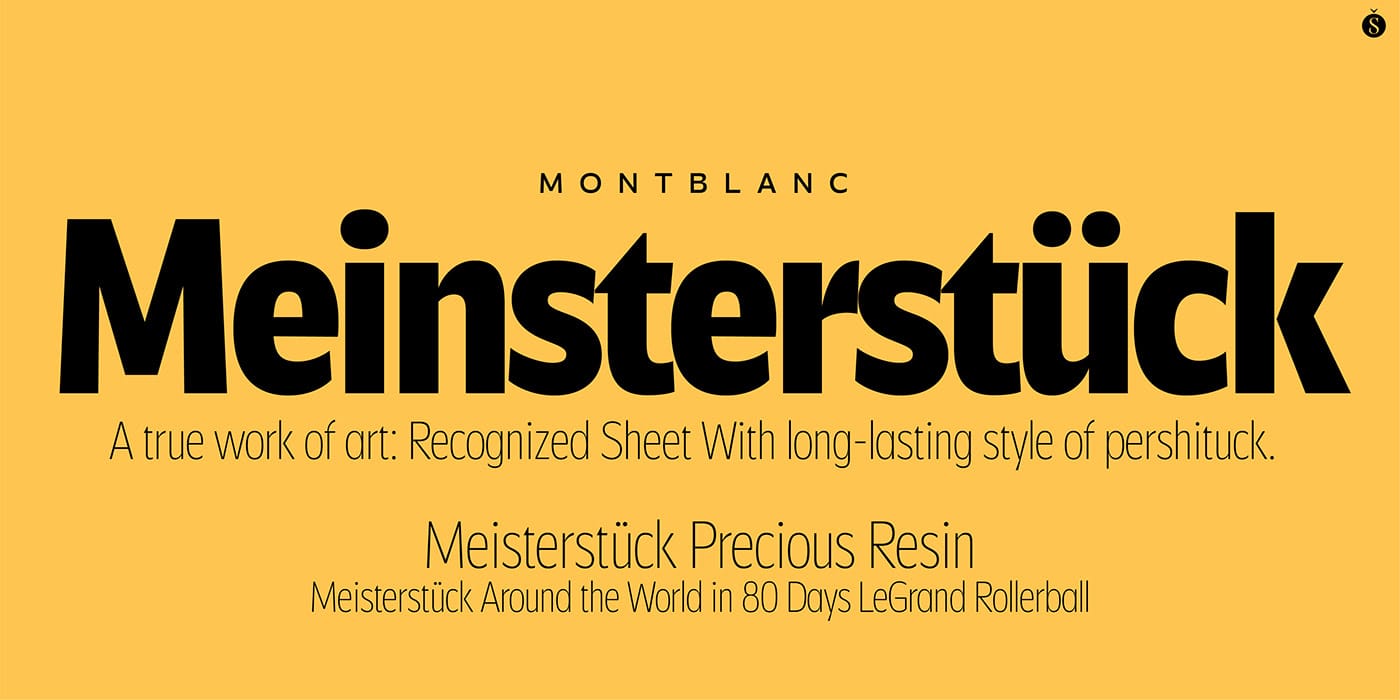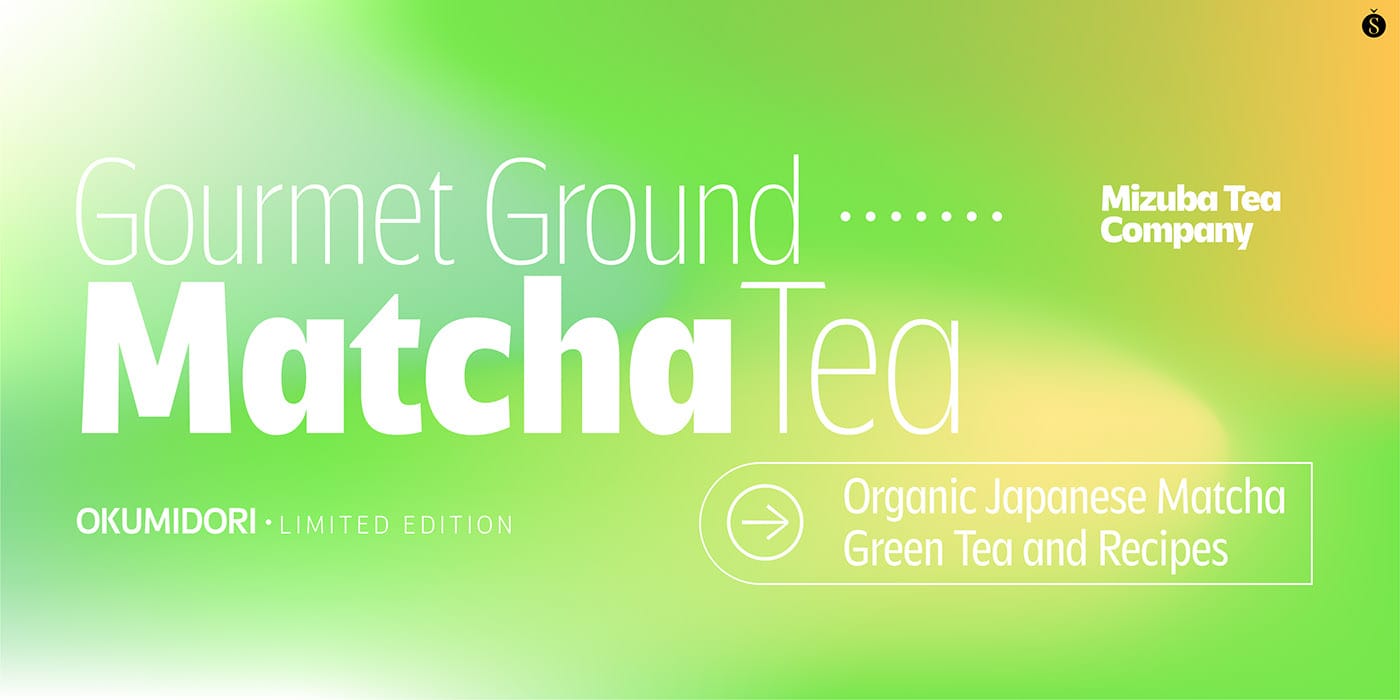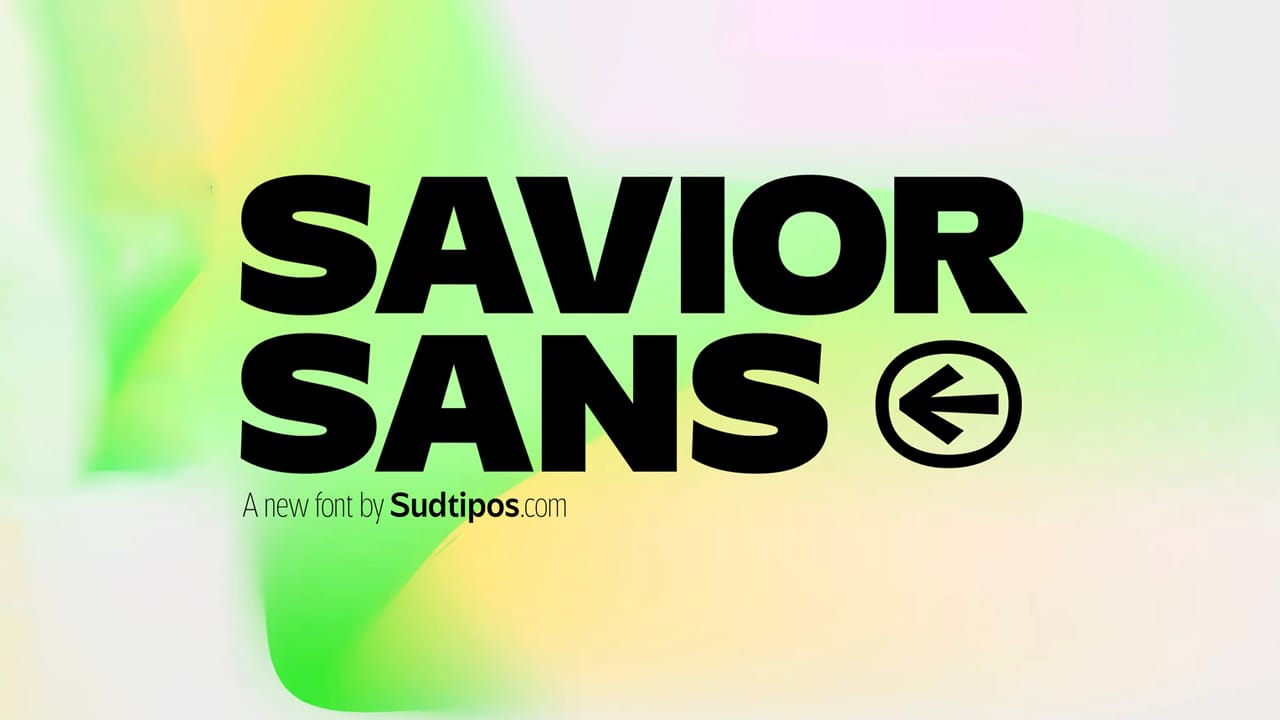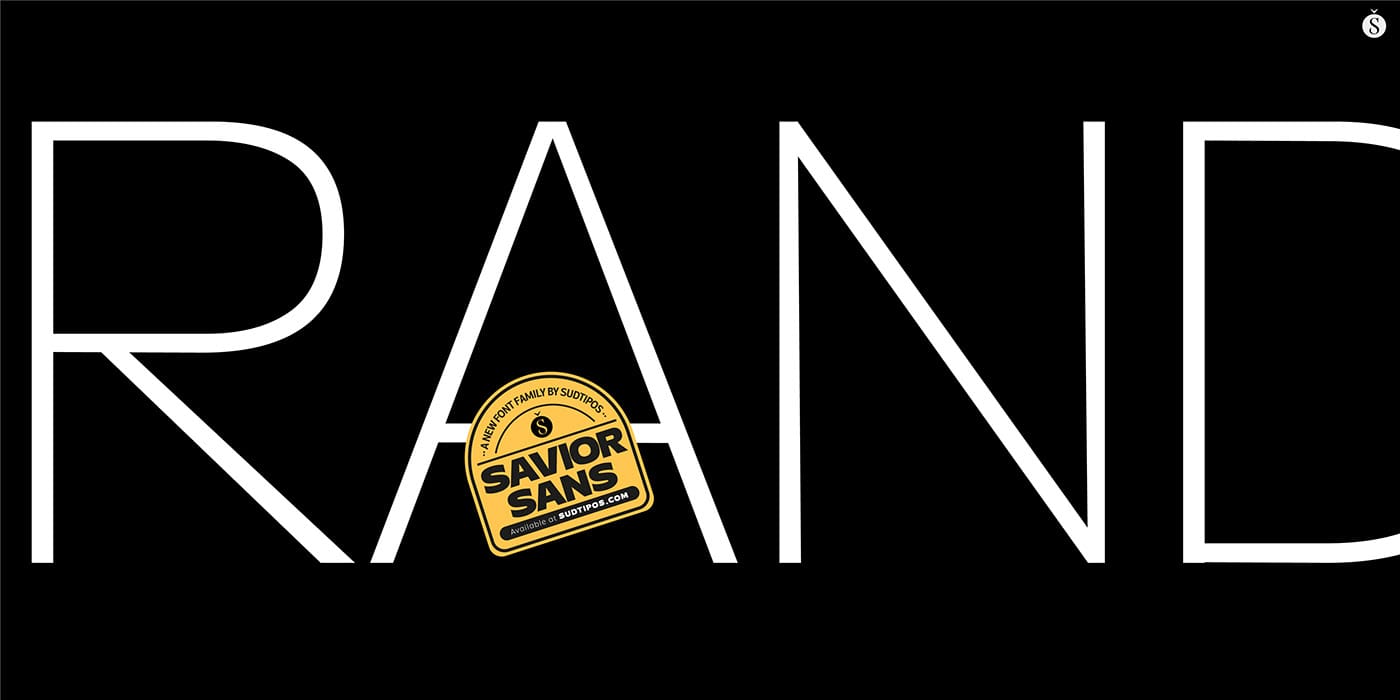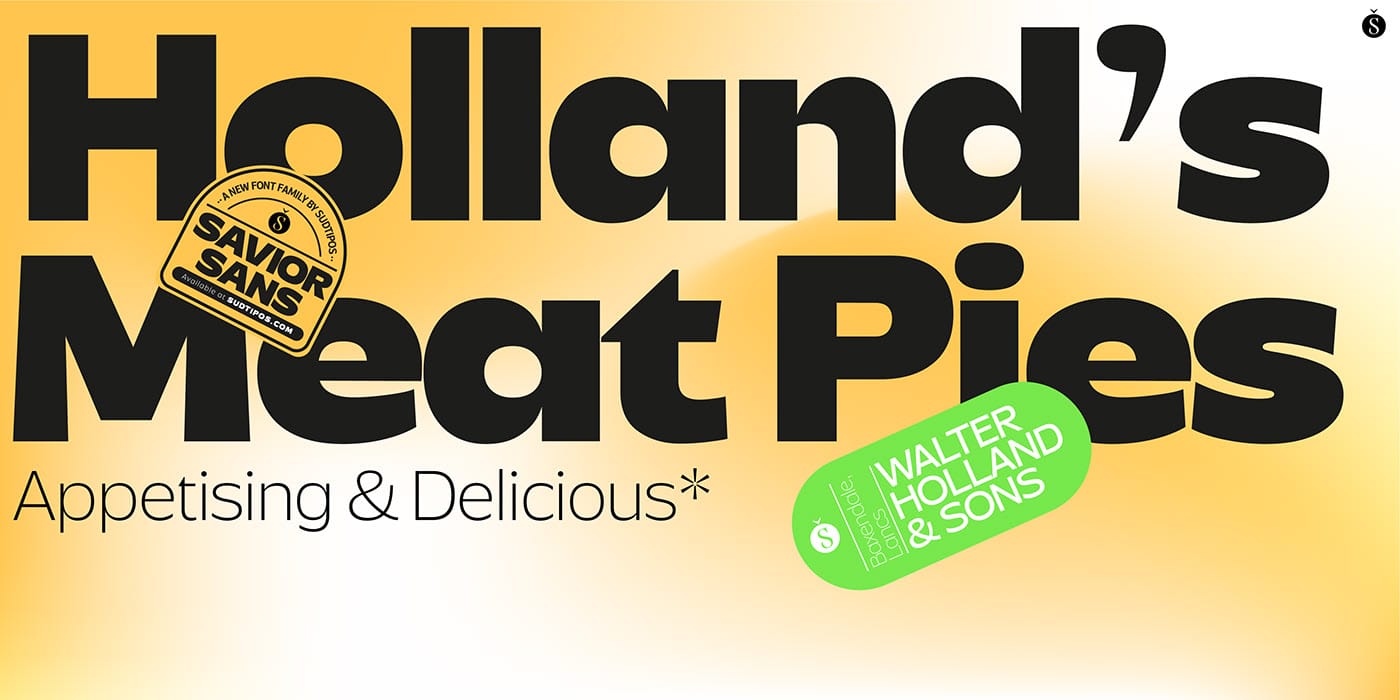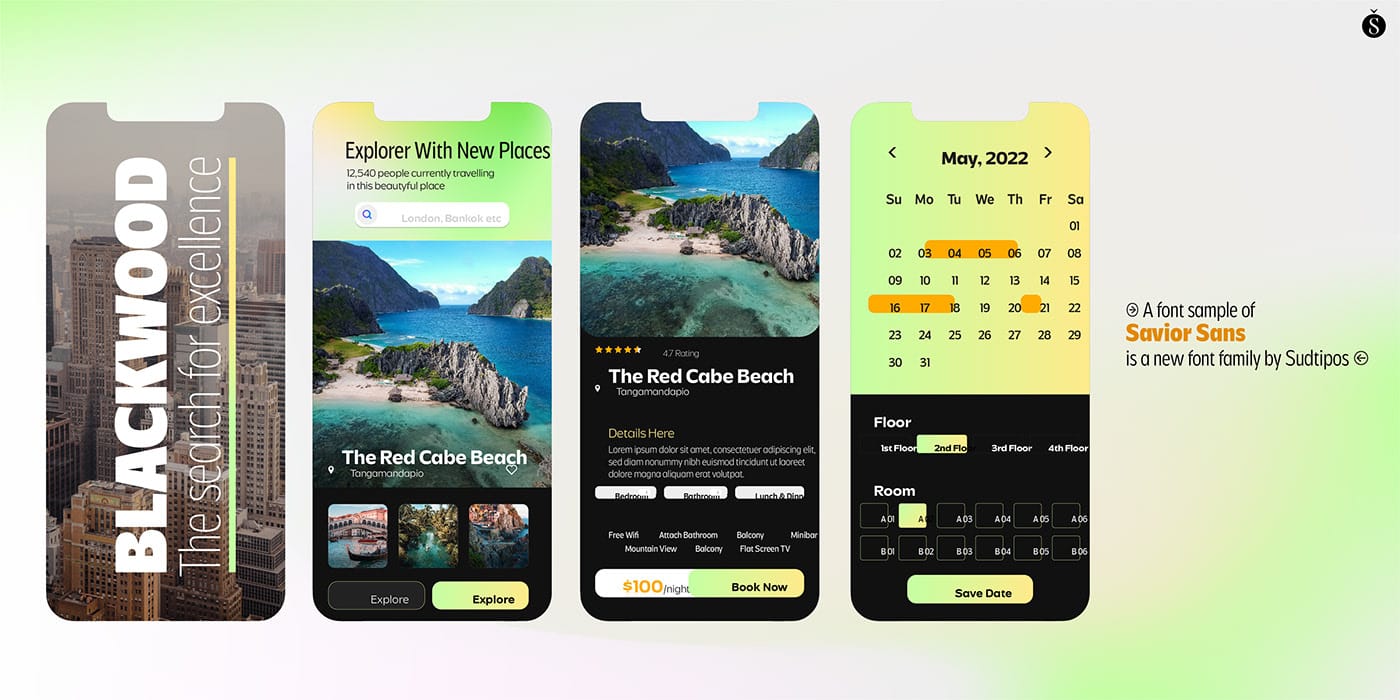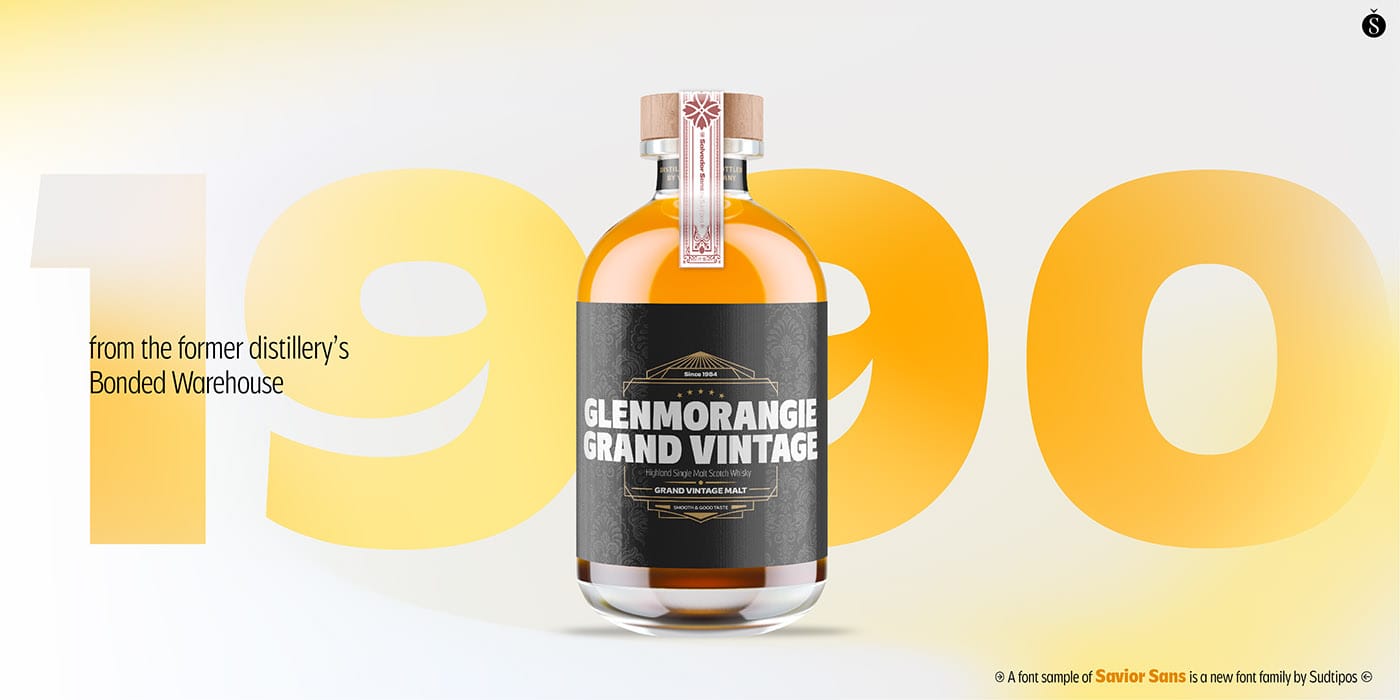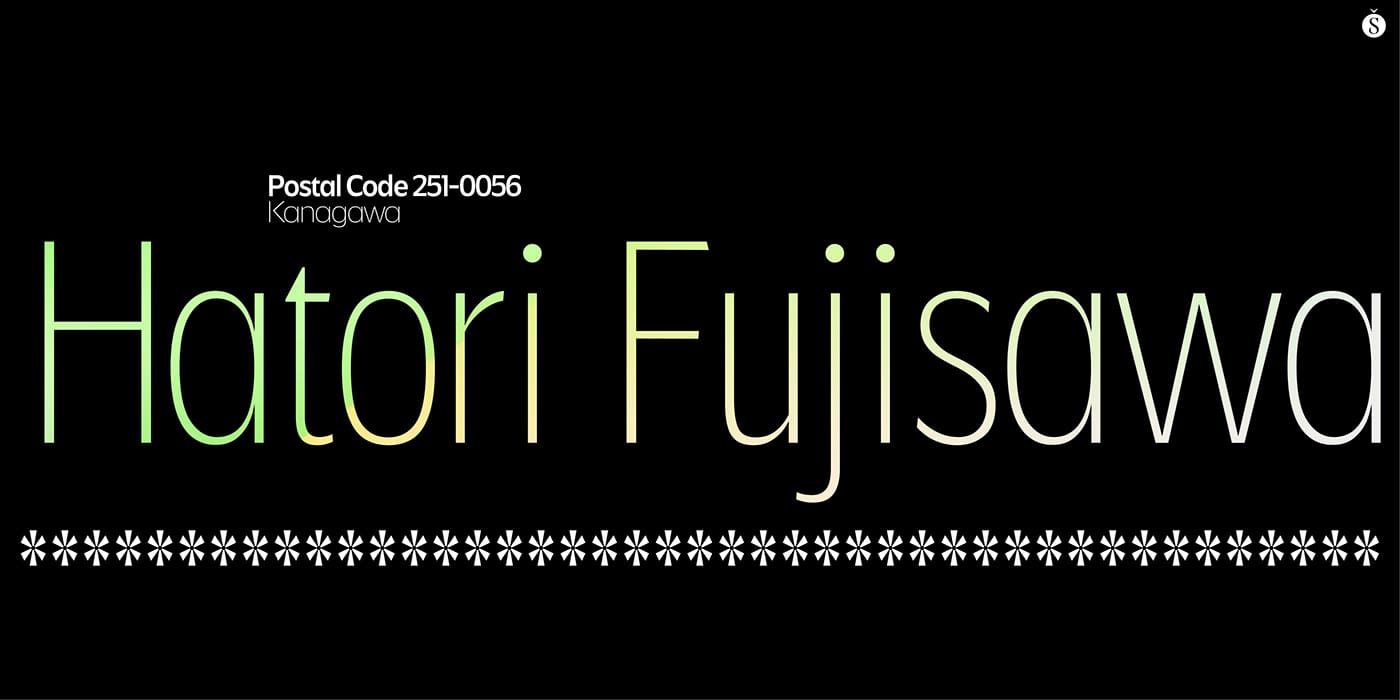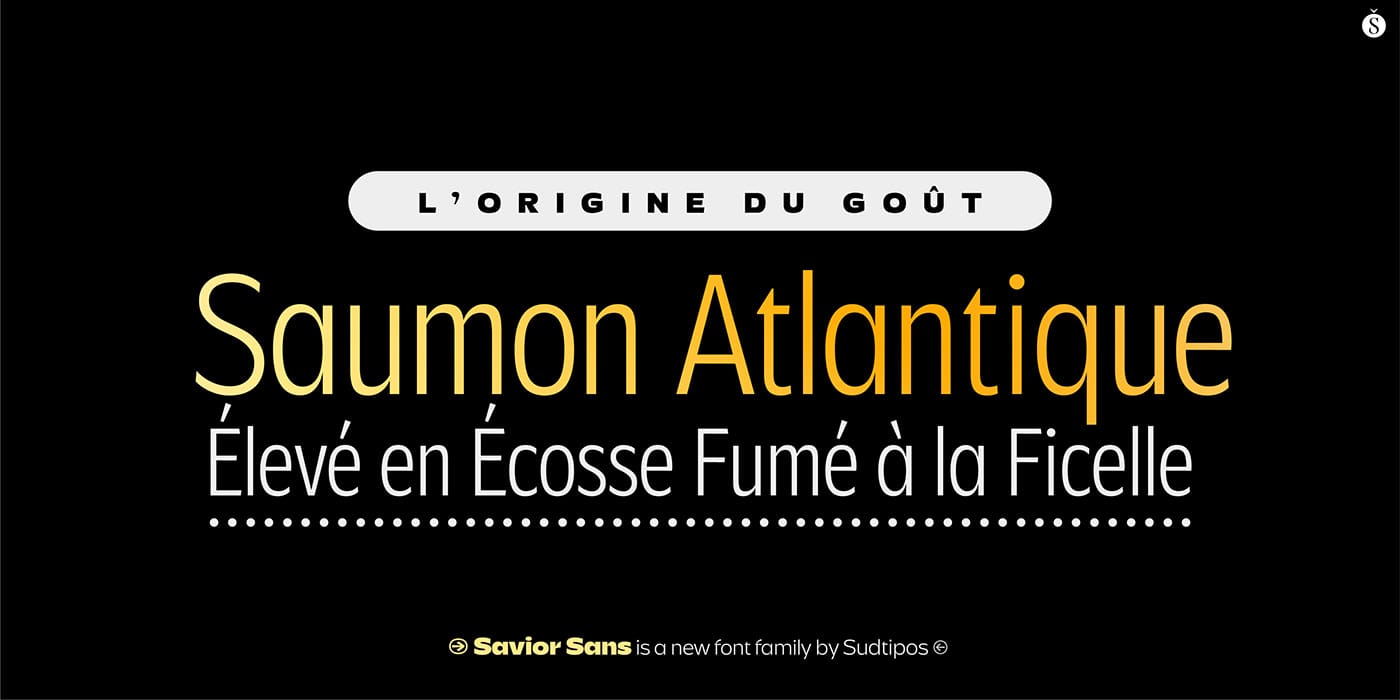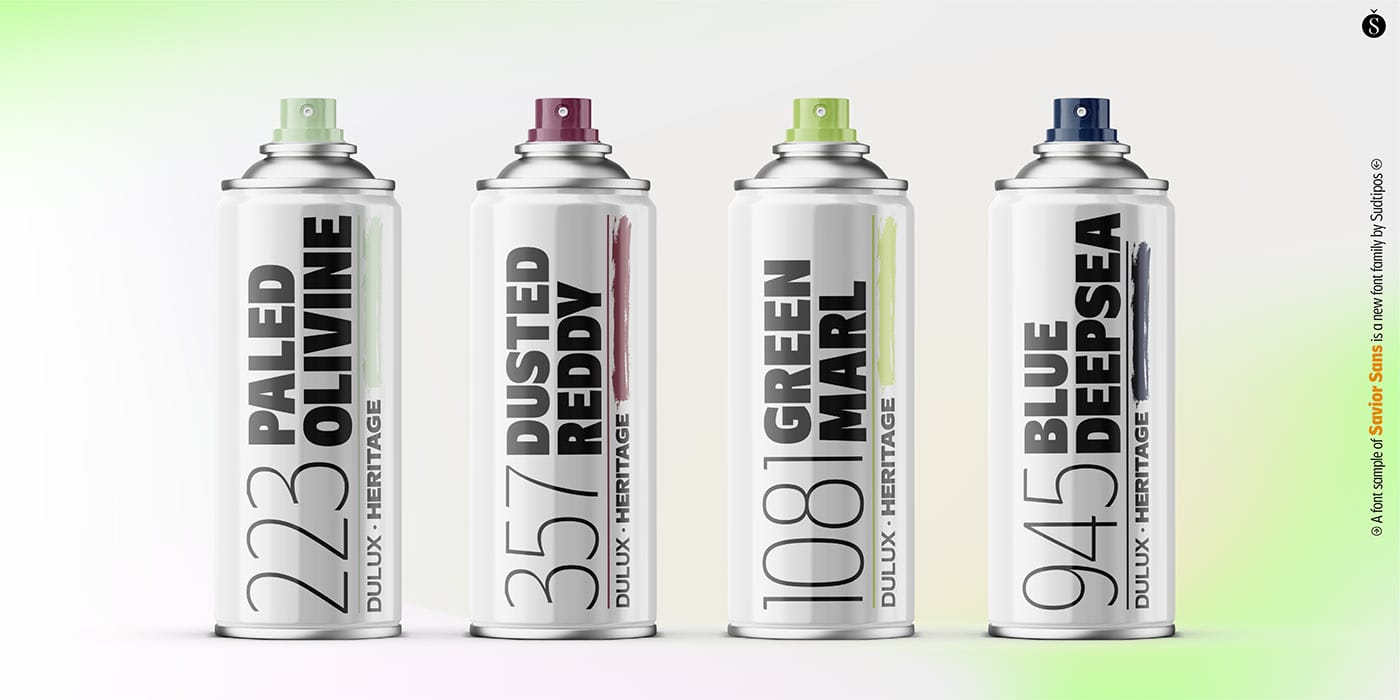
Savior Sans Font Family (Free Download)
Savior Sans Font Family includes 28 font styles with 9 weights in 3 different widths. Simple designs with shapes to a different texture are suitable for different purposes, such as web design, packaging or branding.
Savior Sans offers a modern take on traditional sans fonts.With many font options so it adapts to many different designs with different font styles.
It can be said that Savior Sans is a quality font that is suitable for many different designs from long text to large headlines, it has good display and different impressions.